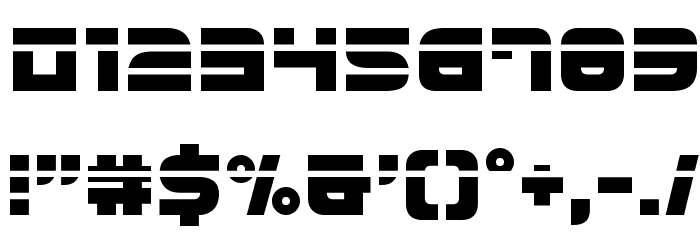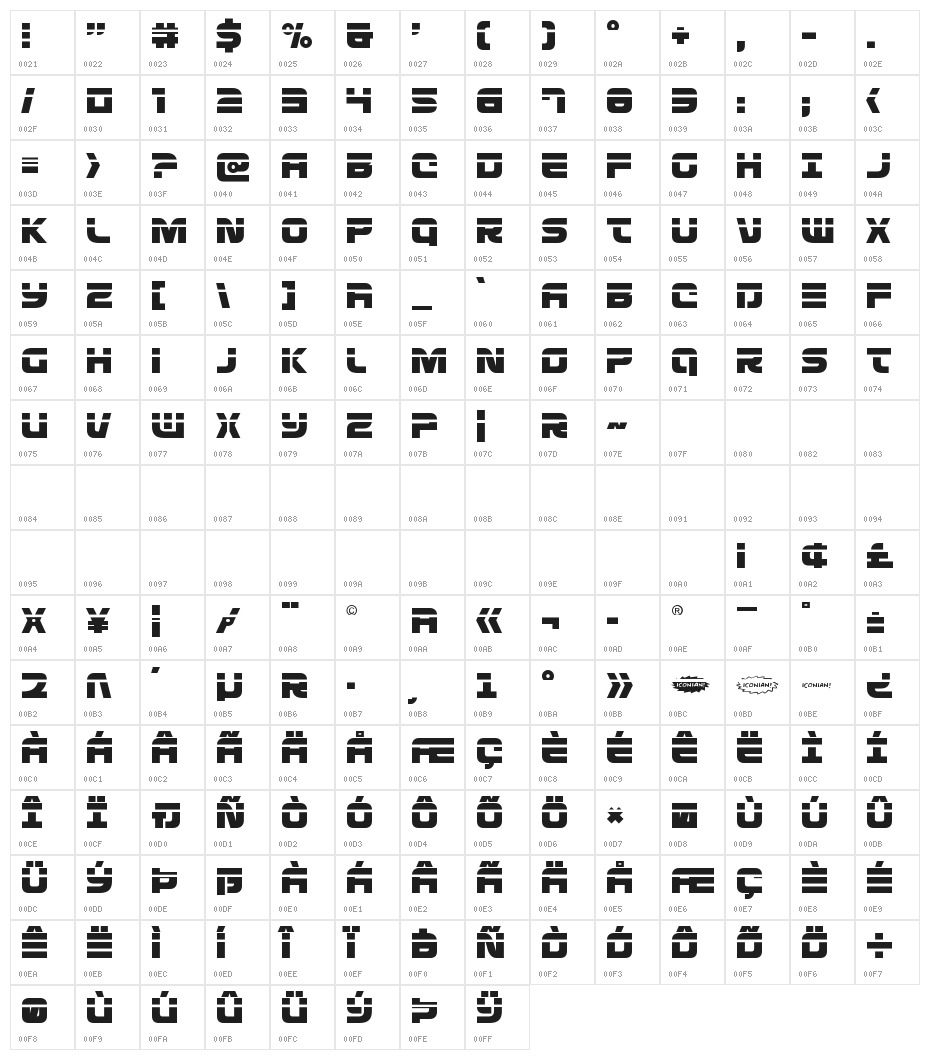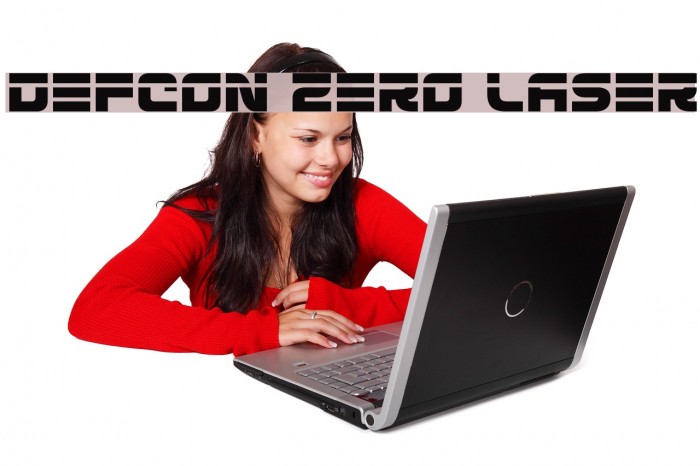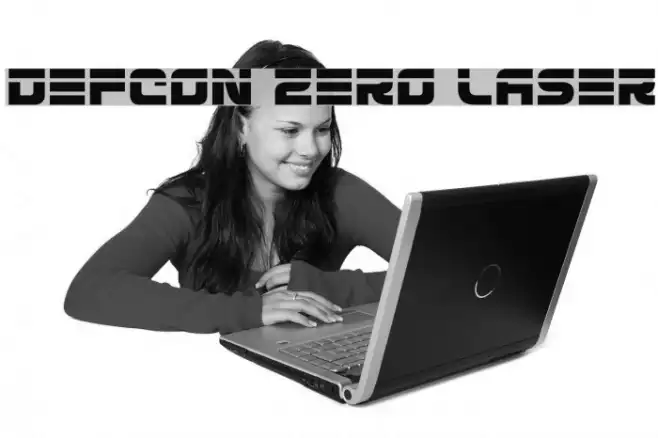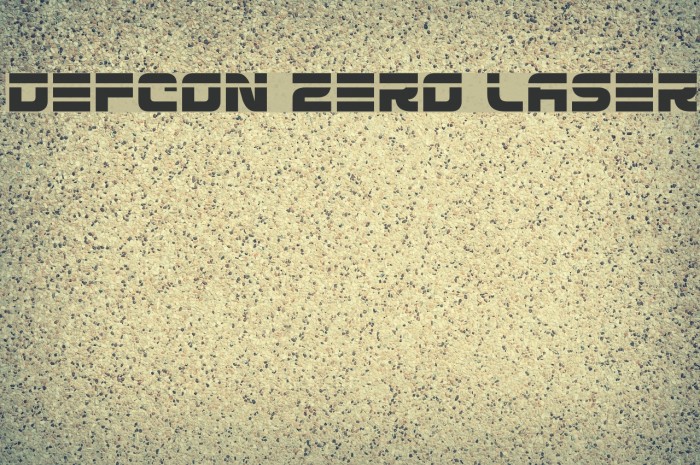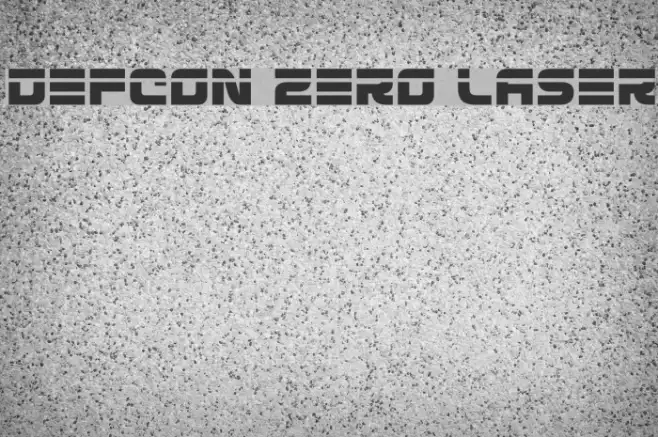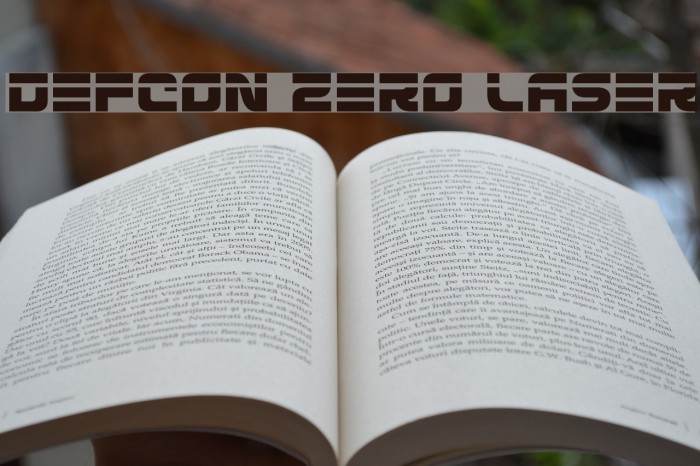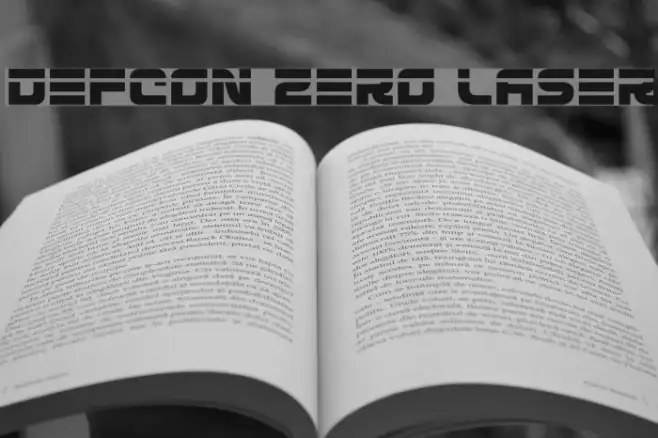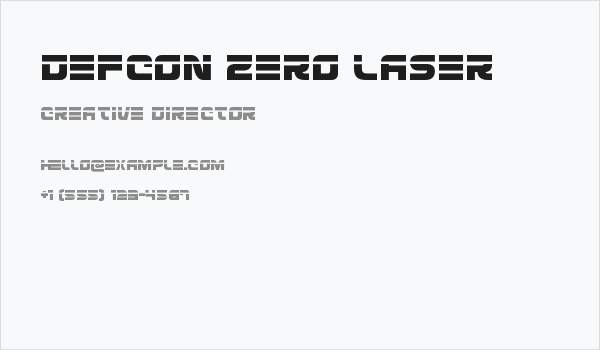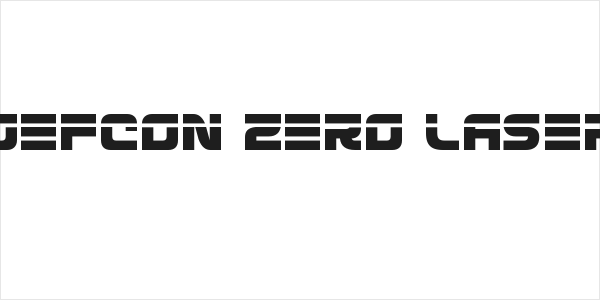
This font features a bold, futuristic design with a strong geometric structure. The characters are constructed with thick, block-like forms, giving them a robust and industrial appearance. The use of sharp angles and straight lines creates a sense of precision and modernity. The font's style is reminiscent of digital or sci-fi themes, making it suitable for projects that require a high-tech or cutting-edge look. The uppercase and lowercase letters maintain a consistent width, contributing to a uniform and cohesive visual impact. The numerals and special characters are designed to match the boldness and angularity of the alphabet, ensuring a harmonious overall aesthetic.
| Proposed Projects | Ideal for technology branding, sci-fi movie posters, video game titles, and digital interfaces. |